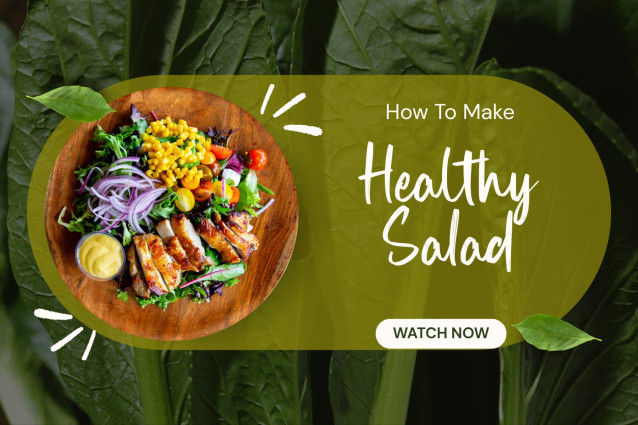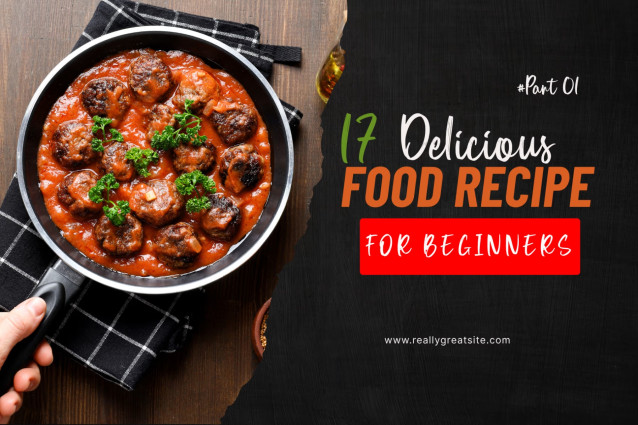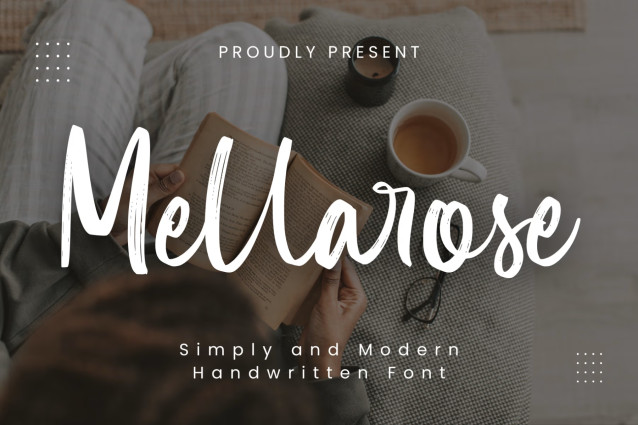
Mellarose Font
Introducing Mellarose, an exquisitely crafted brush script font. Its handwritten style boasts an effortless flow and a unique artistic flair. Mellarose shines in a variety of applications – from creating standout logos and defining brands, to jazzing up quotes and invitations.
This versatile font blends seamlessly into social media visuals, trendy Cricut projects, modern apparel designs and other creative compositions. Immerse in the charm of Mellarose and make your designs come alive.